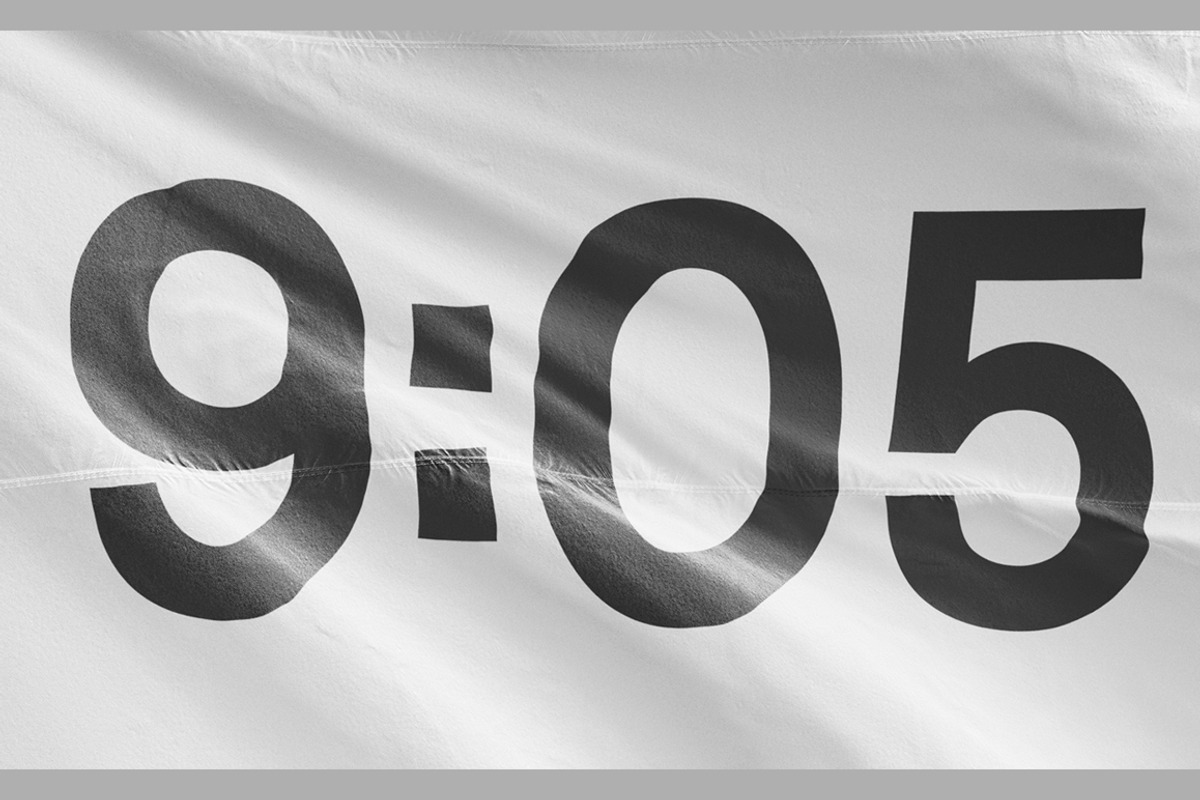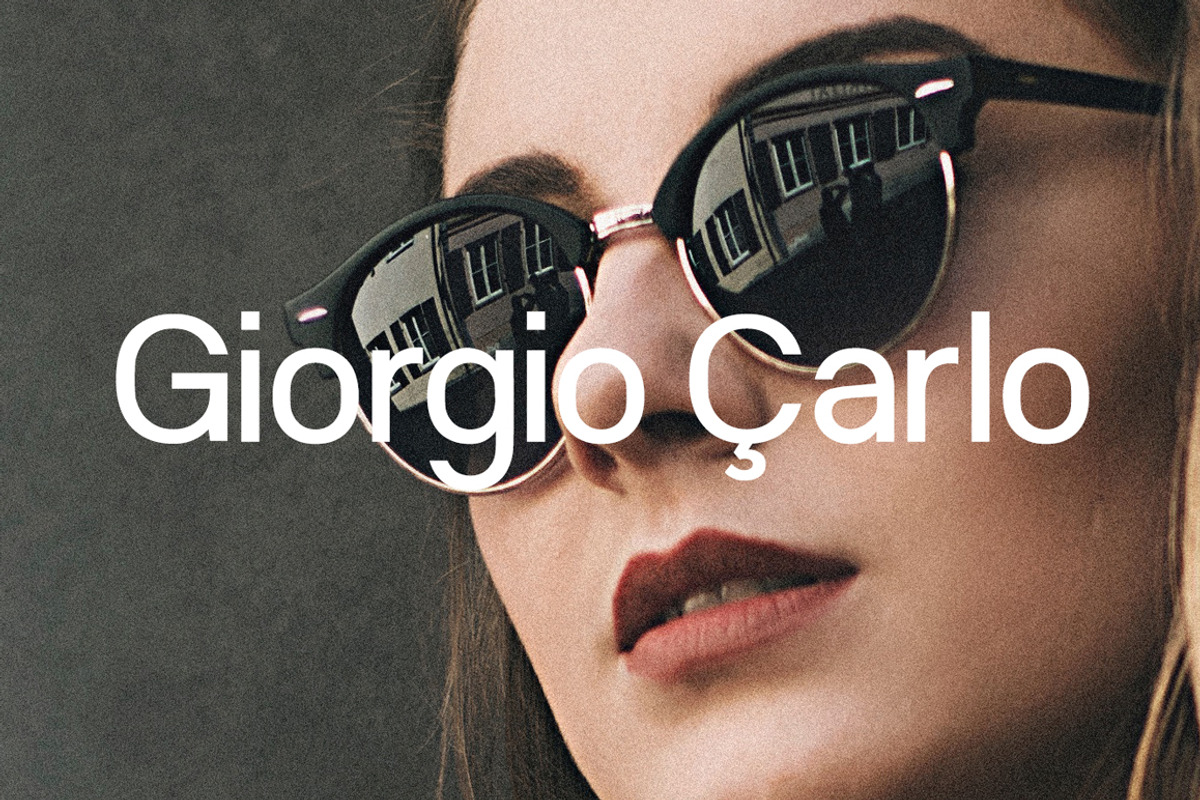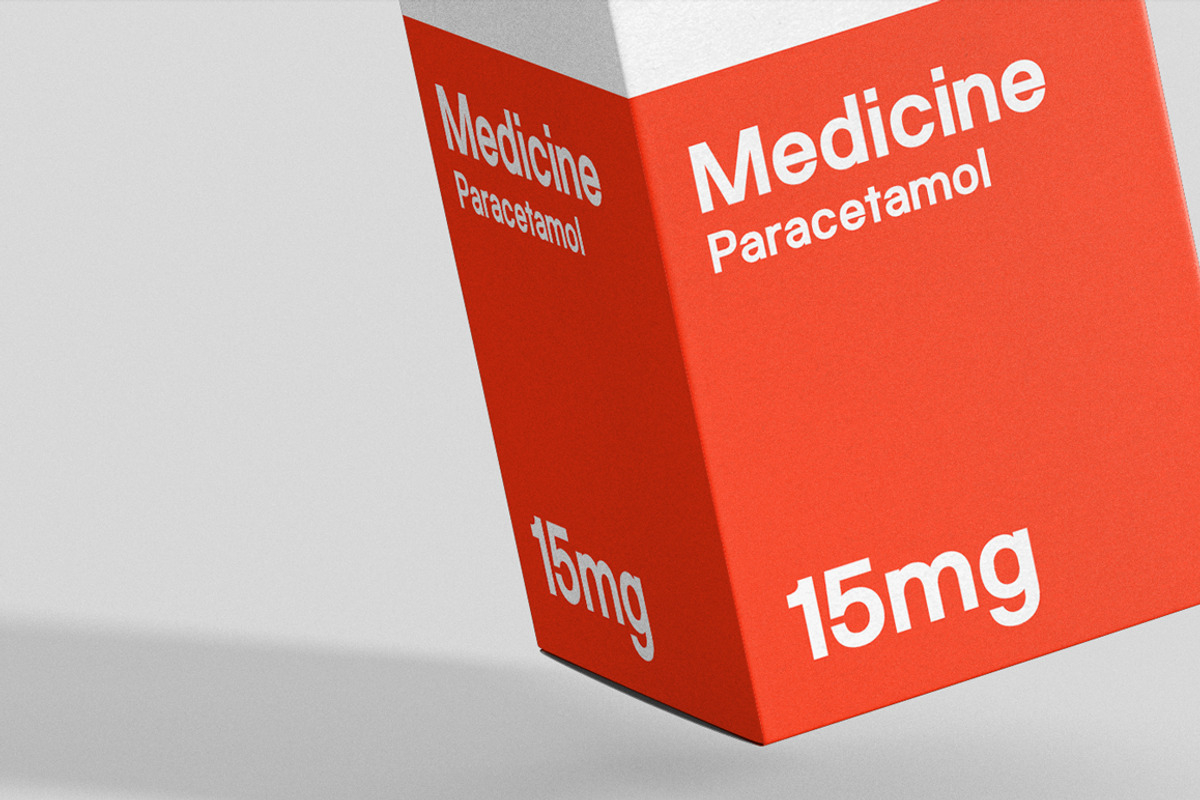
Opicular - Starter Series
About this font family
OPICULAR is a Starter Series of modern sans serif with a geometric typical characters, Inspired by Modern Style & Industrial Era Typographic and Graphic design, comes in 3 weights and 6 styles from Book to Bold. Of course, OPICULAR support for Multi-Language (Latin Extended) Wester European, Central European & South European.